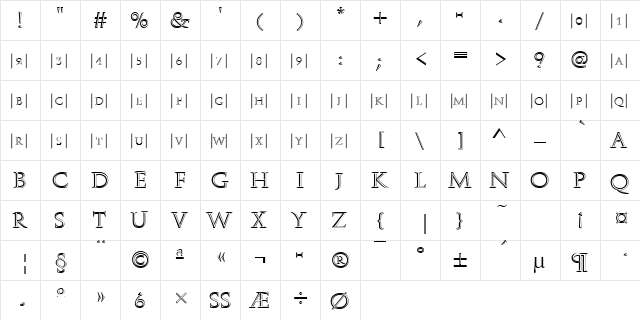
URWAlmagestOpeIniD Regular
Design Context for URWAlmagestOpeIniD Typeface
URWAlmagestOpeIniD offers clean, dependable letterforms without strong stylistic allegiance, making it a practical choice for designers who need flexibility.
Pro Tip: Use URWAlmagestOpeIniD in both headline and body roles to test its range before committing to a single application.